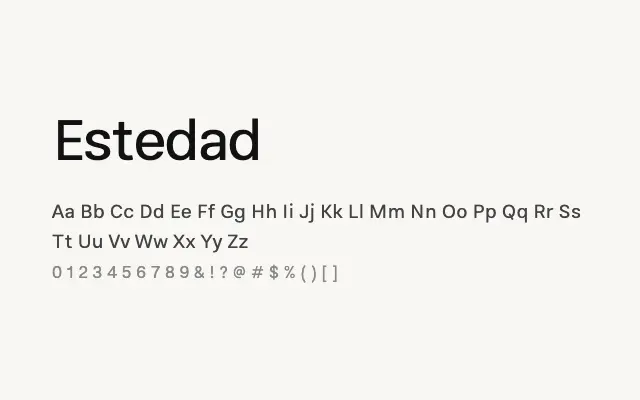
A broad-weight humanist sans built for Arabic–Latin bilingual use with a clean, contemporary character.
Estedad spans nine weights, making it highly versatile for both interface design and editorial work in Arabic and Latin scripts. The Arabic letterforms are modern and legible without sacrificing cultural authenticity, while the Latin companion maintains consistent visual rhythm. It is well suited to digital products, publications, and branding projects requiring genuine bilingual typographic consistency.
Estedad is a large-family humanist sans designed to serve both Arabic and Latin scripts with visual harmony and a wide weight range. Its Arabic forms are clean and contemporary, aligning well with the Latin counterparts across the full weight spectrum.